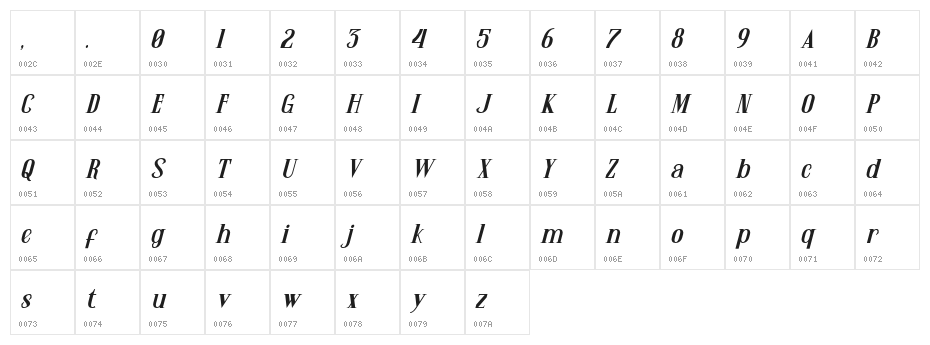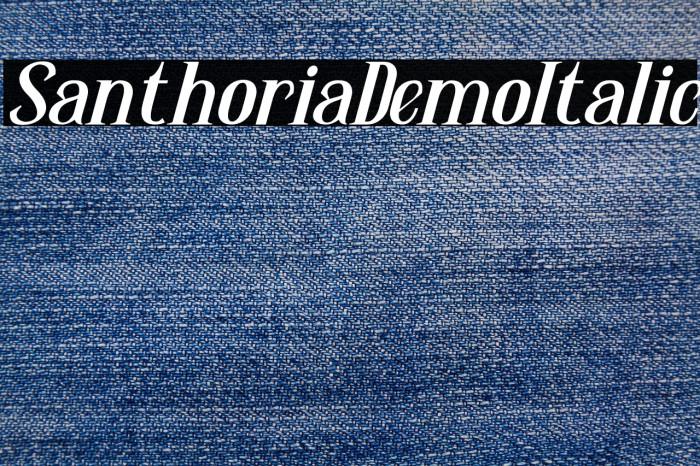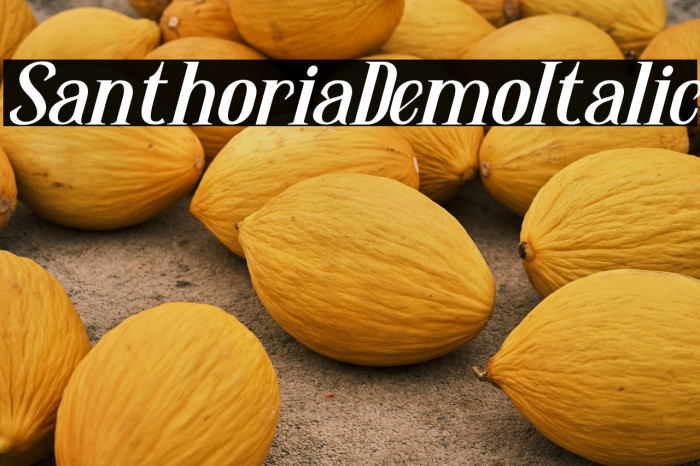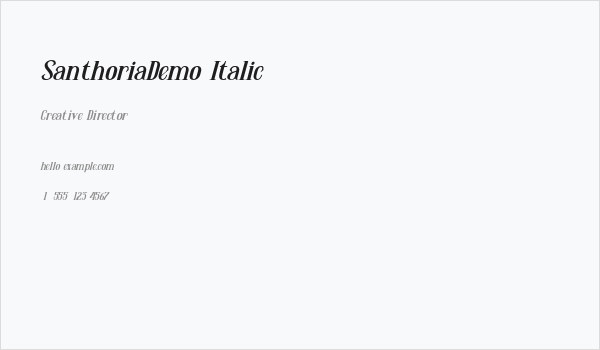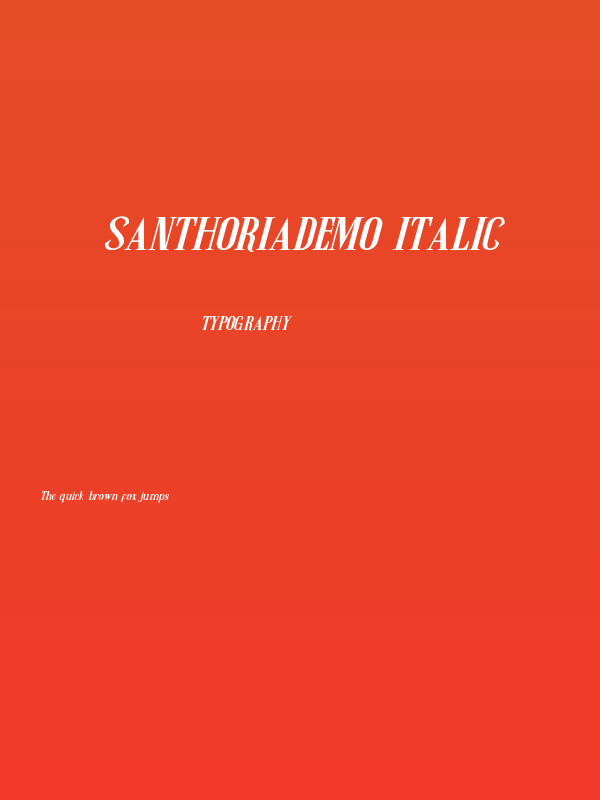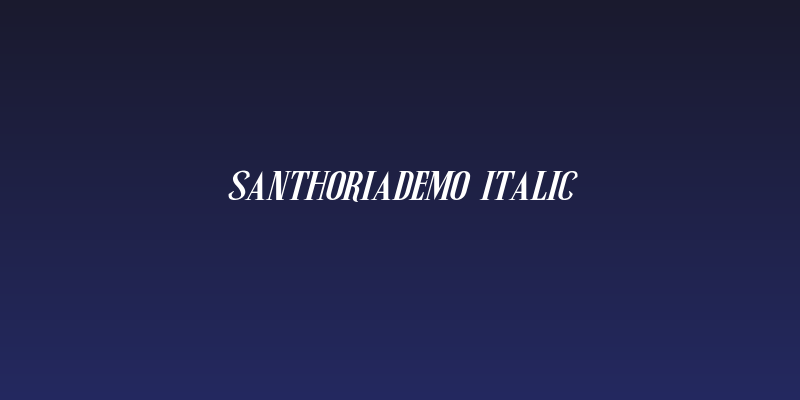
SanthoriaDemo-Italic Font
SanthoriaDemo-Italic Description
This font features an elegant and sophisticated italic style, characterized by its flowing and dynamic letterforms. The strokes are moderately thick, providing a balanced contrast that enhances readability while maintaining a stylish appearance. The uppercase letters exhibit a classic serif design, with sharp, pointed serifs that add a touch of formality and tradition. The lowercase letters are equally graceful, with smooth curves and a slight slant that gives the text a sense of motion and fluidity. The numerals are consistent with the overall style, offering a harmonious blend of classic and modern elements. This font is well-suited for projects that require a touch of elegance and sophistication.
Overall StyleClassic
Use CaseHeadlines, Logos, Invitations
Proposed ProjectsIdeal for wedding invitations, luxury branding, editorial design, and elegant packaging.